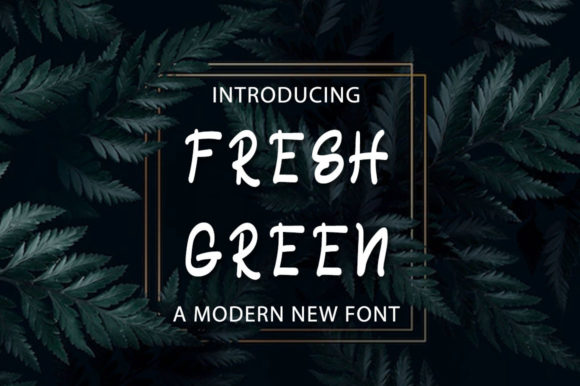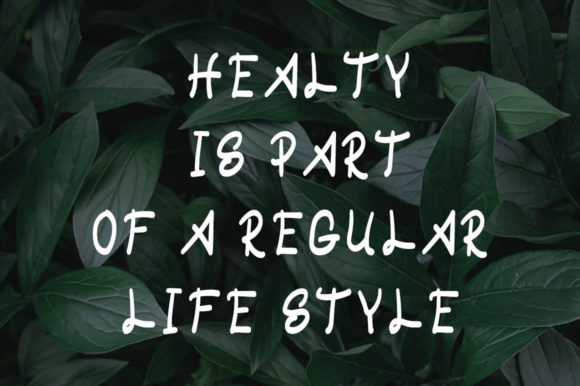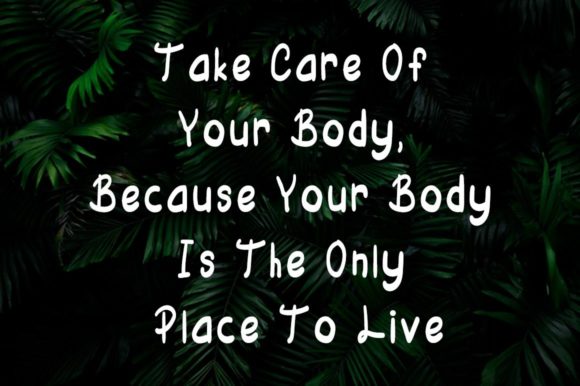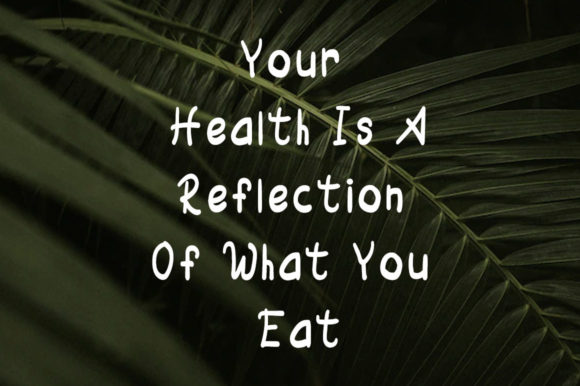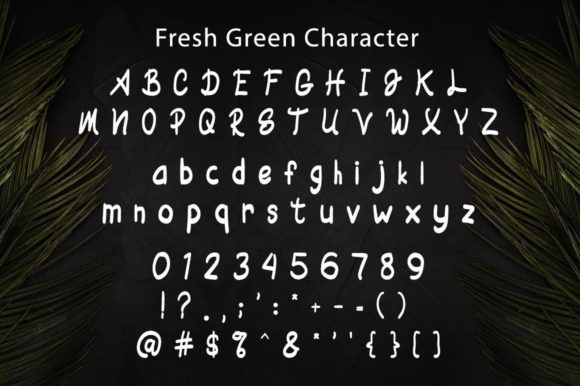
Fresh Green Font
About Fresh Green Font
Introducing Fresh Green, a charming and casual serif font designed to bring a touch of cuteness to any creative setting. This font radiates a fresh and casual vibe, making it a standout choice for various contexts. Whether you’re searching for fonts to enhance your Instagram style or seeking the perfect calligraphy scripts for DIY projects, Fresh Green has the versatility to turn any creative concept into a genuine piece of art.
The appeal of Fresh Green extends across a spectrum of applications, making it a valuable addition to your font collection. Its playful and casual nature makes it perfect for logos, infusing brand identities with a lively and approachable charm. Headings take on a whimsical quality, adding character and style to your text. T-shirts become a canvas for creativity as Fresh Green transforms ordinary designs into eye-catching fashion statements.
For professional correspondence, Fresh Green brings a breath of fresh air to letterheads, making communications memorable and inviting. Signage gains a touch of playfulness, ensuring that messages not only convey information but also captivate the audience. Labels on products, be they handmade or commercial, shine with Fresh Green’s unique and delightful aesthetic.
News articles and posters receive a delightful makeover with Fresh Green, capturing attention and injecting a touch of personality into your content. Badges become charming accessories that stand out in any setting, showcasing the font’s adaptability across diverse applications.
In essence, Fresh Green is more than just a font; it’s a design asset that enhances various creative projects with its cute and casual charm. Its suitability for logos, headings, t-shirts, letterhead, signage, labels, news, posters, badges, and more underscores its versatility. As you explore the potential of Fresh Green, you’ll find that it effortlessly transforms your creative ideas into delightful realities, making every project a true piece of art.